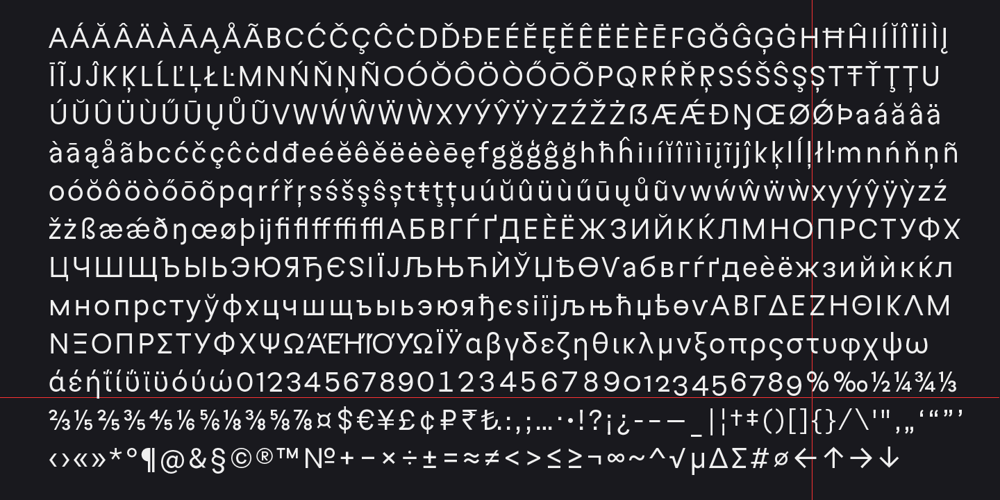
Ideal Font Family was designed by André Leonhardt and published by Interfont. Ideal contains 20 styles and family package options. Ideal is a neo-grotesk typeface characterized by exaggerated proportions and an unconventional shift in balance such as in its a, k or s. Following low-contrast construction principles and with a generous x-height, Ideal works well both for expressive headlines and versatile reading sizes. The family consists of ten weights plus corresponding Italics. It supports languages written with Latin, Cyrillic or Greek alphabets. Each font includes fractions, tabular and oldsytle figures, arrows, ligatures and more.